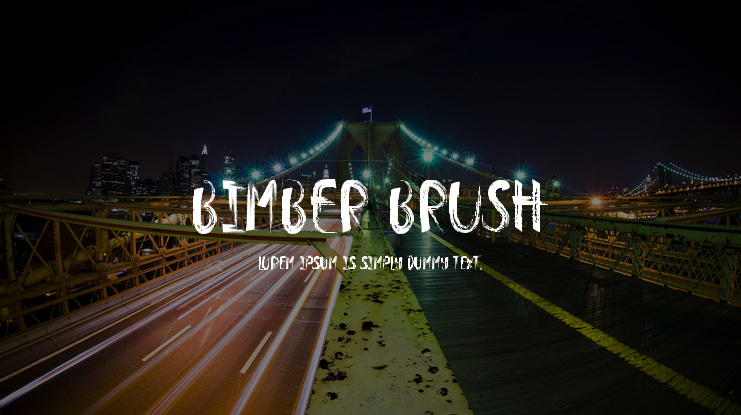
Bimber Brush Font
Bimber Brush Font is entirely hand-painted sans serif. A raw, bold, condensed font, with brushy imperfections and an earthy realism. Inspired by Lettering Tattoo Style. came with open type features for logotype, Barbershop, badge, Tattoo Artist, Tattoo merchandise, tattoo letters and any more.You can buy full license from our store for more our fonts:https://www.creativefabrica.com/product/bimber-brush/ref/378978/https://177studio.com/https://gumroad.com/177studioAlso check out for free demo:https://www.fontspace.com/177studiohttps://befonts.com/author/177studiohttps://www.dafont.com/kenz.d8820if you have any problem, let we know by email: Thank you and enjoy!